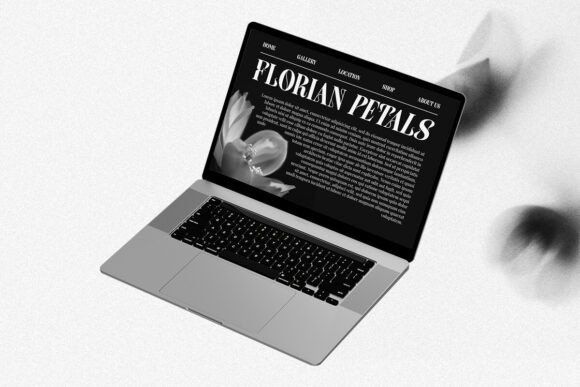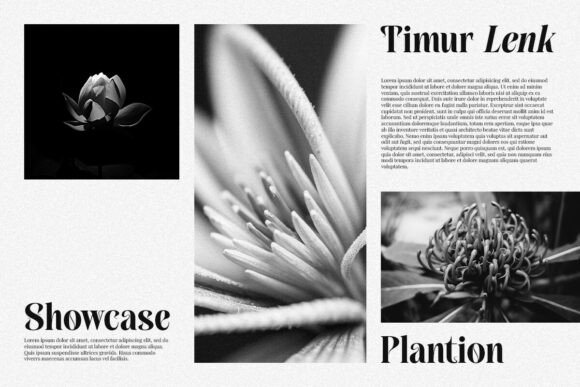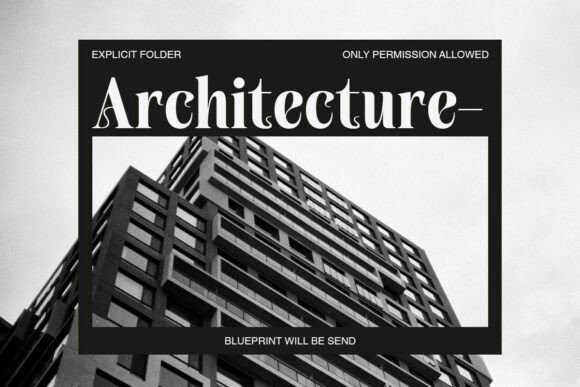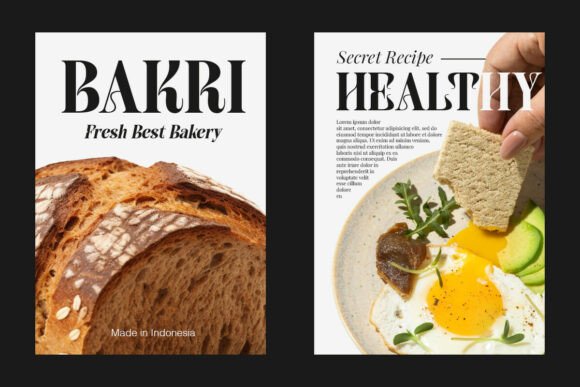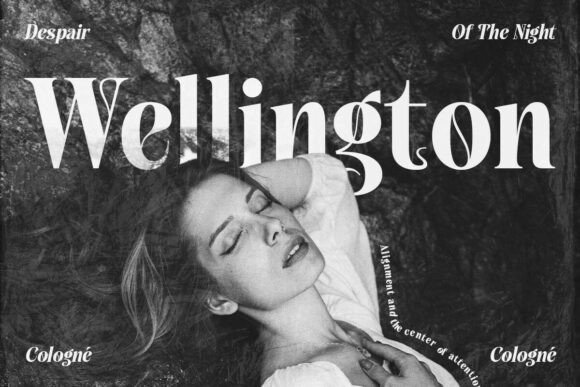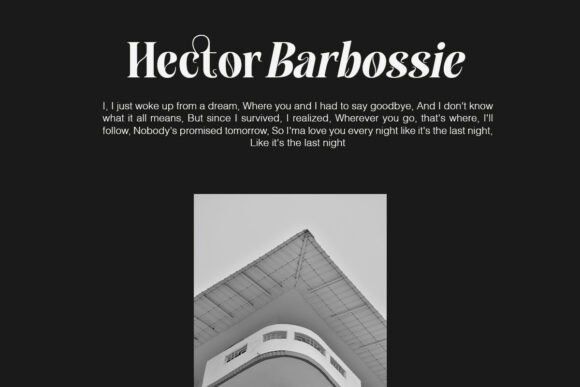
Introduction to Qorina Font
Introducing Qorina, an elegant Display Serif font that exudes luxury and sophistication.
This exquisite typeface is filled with a variety of attractive alternates and ligatures, making it perfect for high-end branding, fashion editorials, and upscale packaging Prestige Edition is available in both regular and italic versions, offering versatility for your creative projects.
Qorina Font offers exceptional quality and versatility, making it a valuable addition to your design toolkit. Whether you’re creating for personal projects or commercial use, Qorina Font delivers professional results.